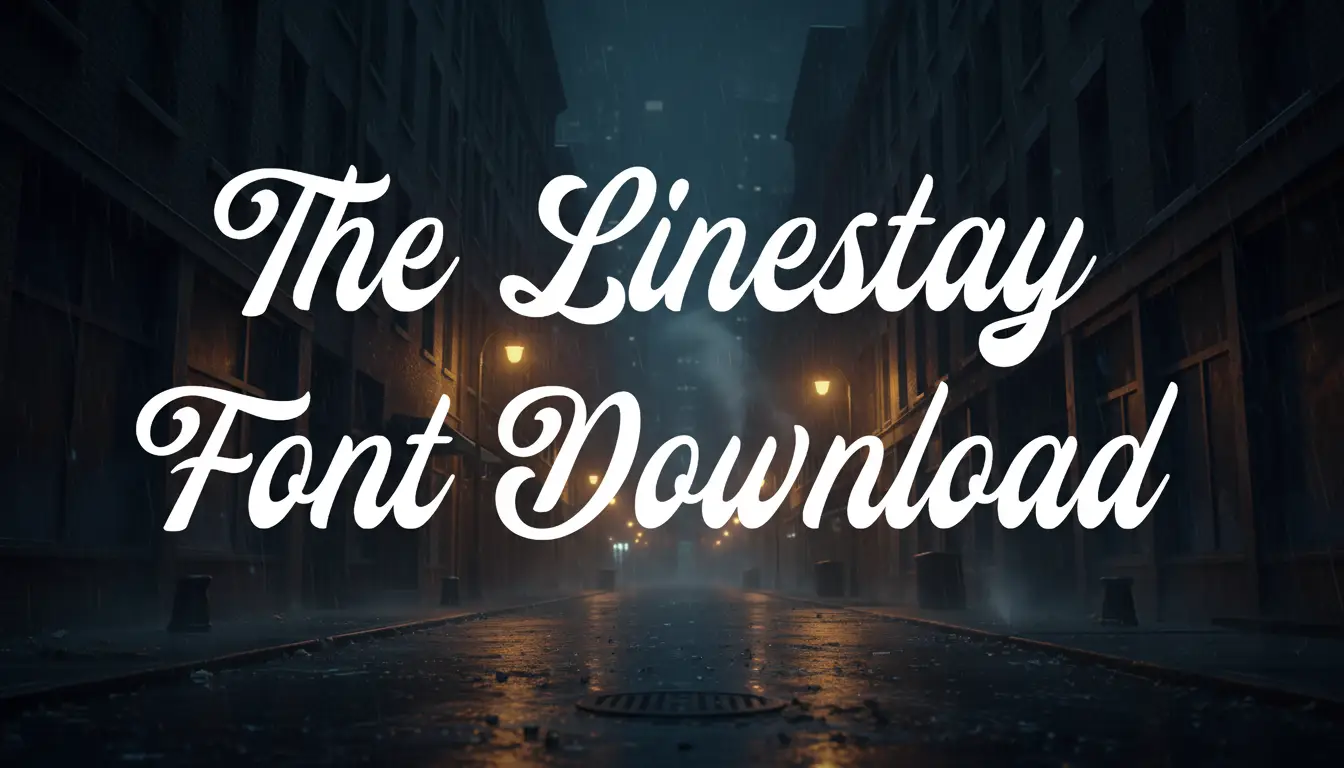
The Linestay
The Linestay is a calligraphy font designed by Letterhend Studio. Its flowing, pen-made letters give names and short phrases a personal, polished look. It's a free download, and you can try it with your own text in the preview above first.
- Designer: Letterhend Studio
What You Can Type With The Linestay
The Linestay covers the full alphabet in upper and lowercase, plus all ten numbers, so you can set names, dates and prices without switching fonts. Everyday marks like &, !, ? and @ are there too. There are no accented letters like é or ñ, so it's best kept to English text.
Where The Linestay Works Best
Think of The Linestay for wedding invitations, certificates and elegant quotes. The file has no kerning data, so in logos and big titles check pairs like AV, To and Wa and tighten the spacing by hand. Script fonts read best in short bursts, so keep it to names, titles and one-line quotes. Skip all caps: script capitals are drawn to start a word, not to fill one.
Who designed The Linestay font?
Does The Linestay support accented letters?
No. The Linestay has no accented letters such as é, ñ or ü, so it's best for English text.